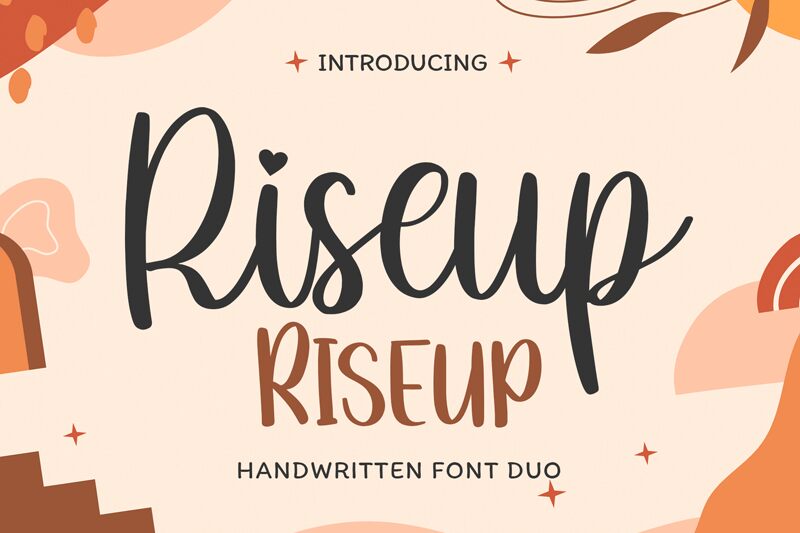
Riseup Two, designed by Bearytype, is a stunning handwritten font that adds an artistic touch to any project. With its semi-light weight and semi-condensed width, it strikes the perfect balance between elegance and readability. This versatile font is ideal for crafting eye-catching logos, stylish branding materials, captivating social media posts, and engaging website designs. Let Riseup Two elevate your creative endeavors with its unique charm and effortless legibility. Whether you're working on a fashion blog or a modern café menu, this font will infuse your projects with sophistication and flair.